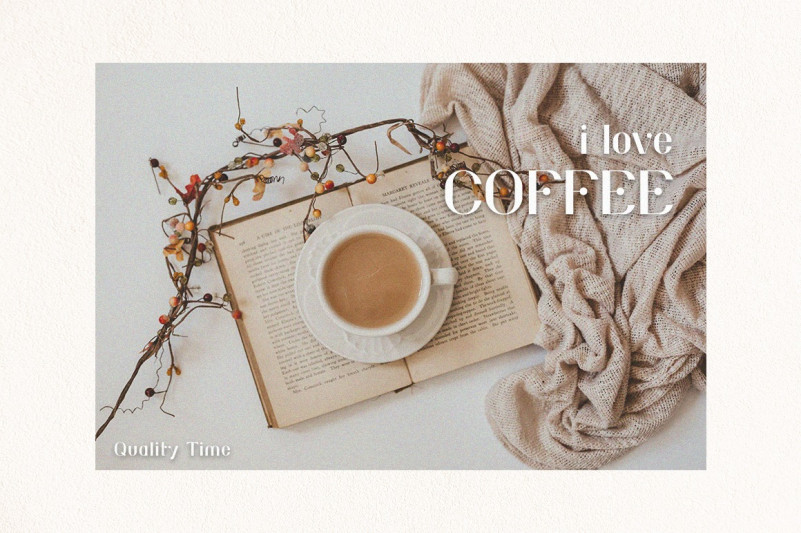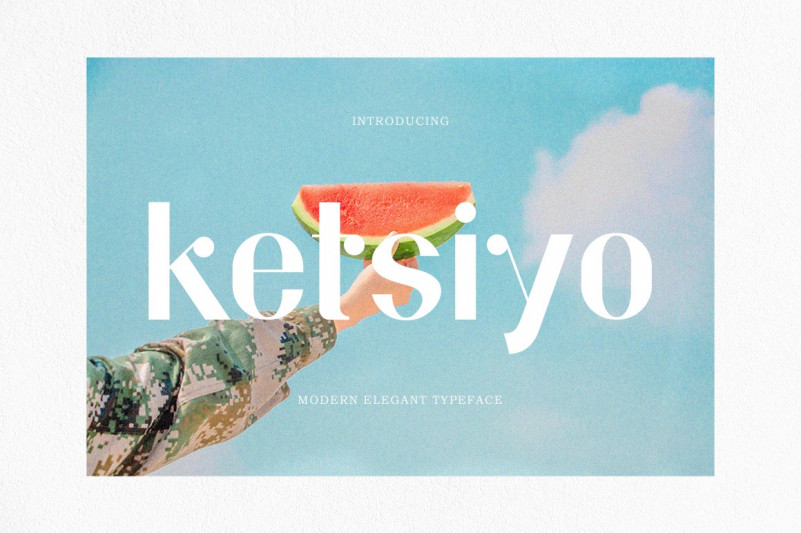
Ketsiyo Sans Serif Font
It’s a beautiful typeface with extensive coverage ranging from editorial design to web design. It’s designed and shared by Salamah Studio. Simple but with a strong visual effect, this font will instantly make your creation more appealing than any others.